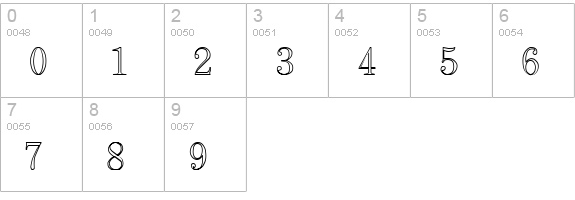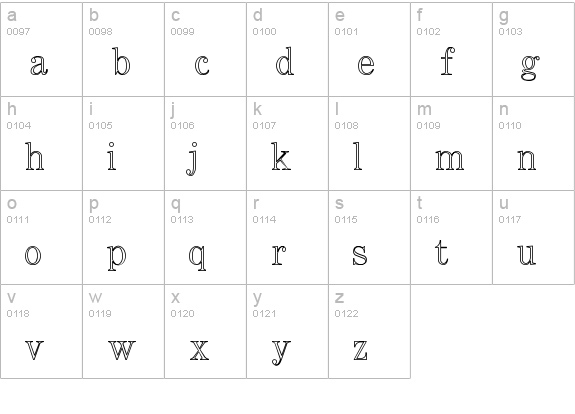
QTCraigetypeOutline Regular Font Details
QTCraigetypeOutline Regular is the standard, neutral variant in the QTCraigetypeOutline typeface family \xE2\x80\x94 well suited to general body text, paragraphs, and standard typographic work.
QTCraigetypeOutline Regular font is a versatile and eye-catching typeface that is sure to make your designs stand out. Perfect for headlines, logos, and display purposes, this font features a unique outline style that adds a touch of sophistication and modernity. With its clean lines and sharp edges, QTCraigetypeOutline Regular font exudes a sense of professionalism and elegance. Its bold and distinct appearance is sure to capture attention and leave a lasting impression. This font is freely available to download at FontsMarket.com, making it easily accessible for designers and creatives alike. Whether you're working on a personal project or a professional client's request, QTCraigetypeOutline Regular font provides a reliable and stylish option. The versatility of QTCraigetypeOutline Regular font allows it to adapt to various design themes and styles. It can effortlessly complement minimalist and contemporary designs, as well as bold and playful concepts. Its clarity and legibility make it suitable for both print and digital applications. QTCraigetypeOutline Regular font offers a wide range of characters, including uppercase and lowercase letters, numbers, punctuation marks, and special symbols. This extensive character set ensures compatibility with different languages and enhances its usability in international projects. Add a touch of sophistication and style to your designs with QTCraigetypeOutline Regular font. Its unique outline style and freely available download at FontsMarket.com make it a must-have for any designer looking to make a statement.